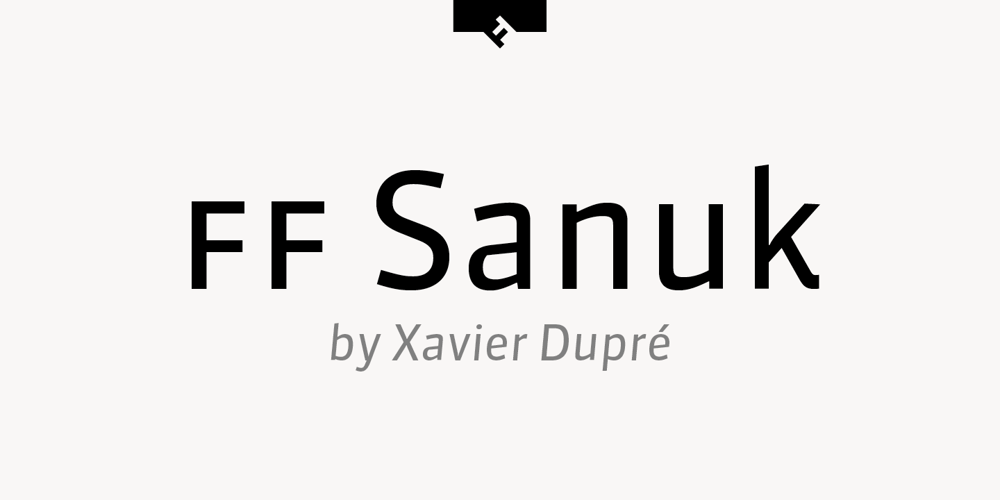
FF Sanuk Font Family was designed by Xavier Dupré and published by FontFont. FF Sanuk contains 14 styles and family package options. French type designer Xavier Dupré created this sans FontFont in 2006. The family has 14 weights, ranging from Hairline to Fat (including italics) and is ideally suited for advertising and packaging, editorial and publishing, logo, branding and creative industries, poster and billboards as well as small text. FF Sanuk provides advanced typographical support with features such as ligatures, small capitals, alternate characters, case-sensitive forms, fractions, and super- and subscript characters. It comes with a complete range of figure set options – oldstyle and lining figures, each in tabular and proportional widths.